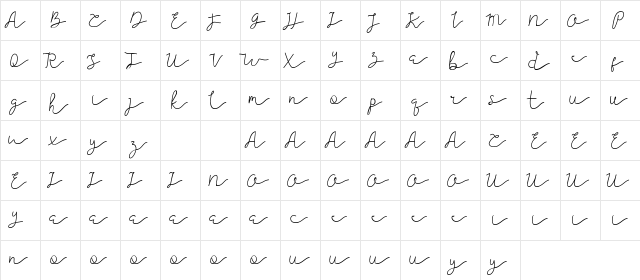
Jellita DEMO Regular
| Foundry | edric studio |
| Designer | Saila |
Design Context for Jellita DEMO Typeface
Jellita DEMO is a composed and adaptable typeface that performs quietly and consistently across a wide range of design contexts.